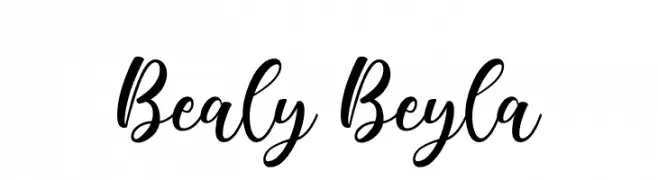
A bold, playful font with rounded, bubbly characters and a whimsical style.
A playful, bold script font with a handwritten style.
A playful, handwritten font with smooth, rounded edges and a casual style.
A bold, chaotic decorative font with jagged, organic textures.
A thorny, aggressive decorative font with sharp, jagged edges.
A bold, thorny, and aggressive decorative font.
A playful, bold handwritten font with smooth curves and consistent height.
Casual handwritten script with rounded, playful strokes.
A bold, hand-drawn font with a rugged and organic style.
A bold, handwritten font with a dynamic and expressive style.
A dynamic handwritten font with fluid strokes and a natural flow.
A dynamic, cursive font with fluid, connected strokes and a modern, artistic style.
A bold, geometric font with sharp angles and a futuristic style.
A graceful and elegant script font with flowing, interconnected characters.
An elegant script font with decorative swirls and a sophisticated style.
A whimsical script font with decorative swirls and loops.
A playful, hand-drawn font with rounded, bold characters.
A bold, hand-drawn font with a dynamic and expressive style.
A bold, flowing script font with a playful, handwritten style.
A dynamic, hand-drawn script font with bold, sweeping strokes.
A bold, geometric font with strong, angular lines and a modern look.
A bold, geometric font with a distinctive inline style, perfect for modern designs.
A bold, Gothic-inspired font with sharp, angular edges and intricate detailing.
A bold, playful script font with a hand-drawn, modern style.
A pixelated, digital-style font with a uniform grid-based design.
A bold, angular font with a graffiti-inspired style, perfect for impactful designs.
A bold, three-dimensional font with strong shadow effects and a geometric, graffiti-like style.
A modern, geometric sans-serif font with clean lines and a sleek appearance.
A bold, playful font with rounded edges and a whimsical style.
A bold, handwritten font with a dynamic and playful style.
A whimsical, playful font with flowing curves and a hand-drawn appearance.
A graceful and elegant script font with flowing, interconnected characters.
A whimsical, handwritten font with playful, cursive-like strokes.